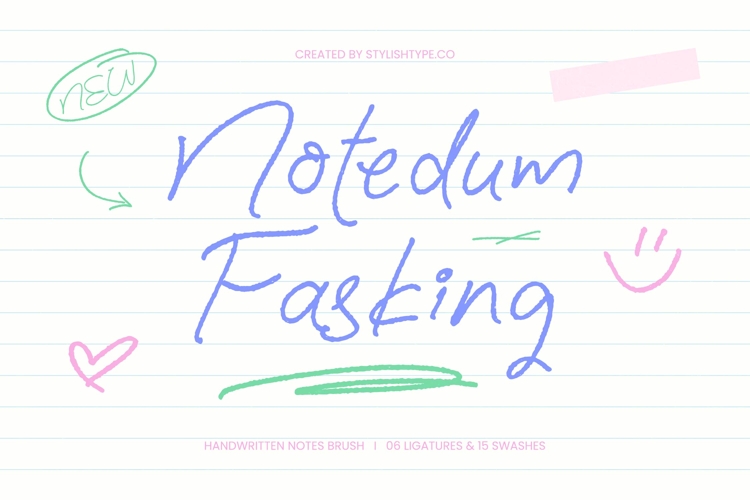
Notedum Fasking - Handwritten Notes Brush
Capture the raw essence of personality and creative freedom with Notedum Fasking - Handwritten Notes Brush. This typeface embodies a natural brush texture and an authentic handwritten aesthetic, perfectly mimicking the look of spontaneous ink on paper. Its dynamic stroke weights and casual flow provide a human touch that instantly connects with your audience, making every design feel personalized, approachable, and highly organic.
With its extensive multilingual support, Notedum Fasking - Handwritten Notes Brush adapts seamlessly across global markets, making it incredibly versatile for international projects. This global compatibility ensures that your brand voice remains consistent and impactful, whether you are targeting local niche markets or a broad international audience. The font’s high-quality legibility remains intact across various scripts, offering a reliable typographic solution for modern digital and print designers.